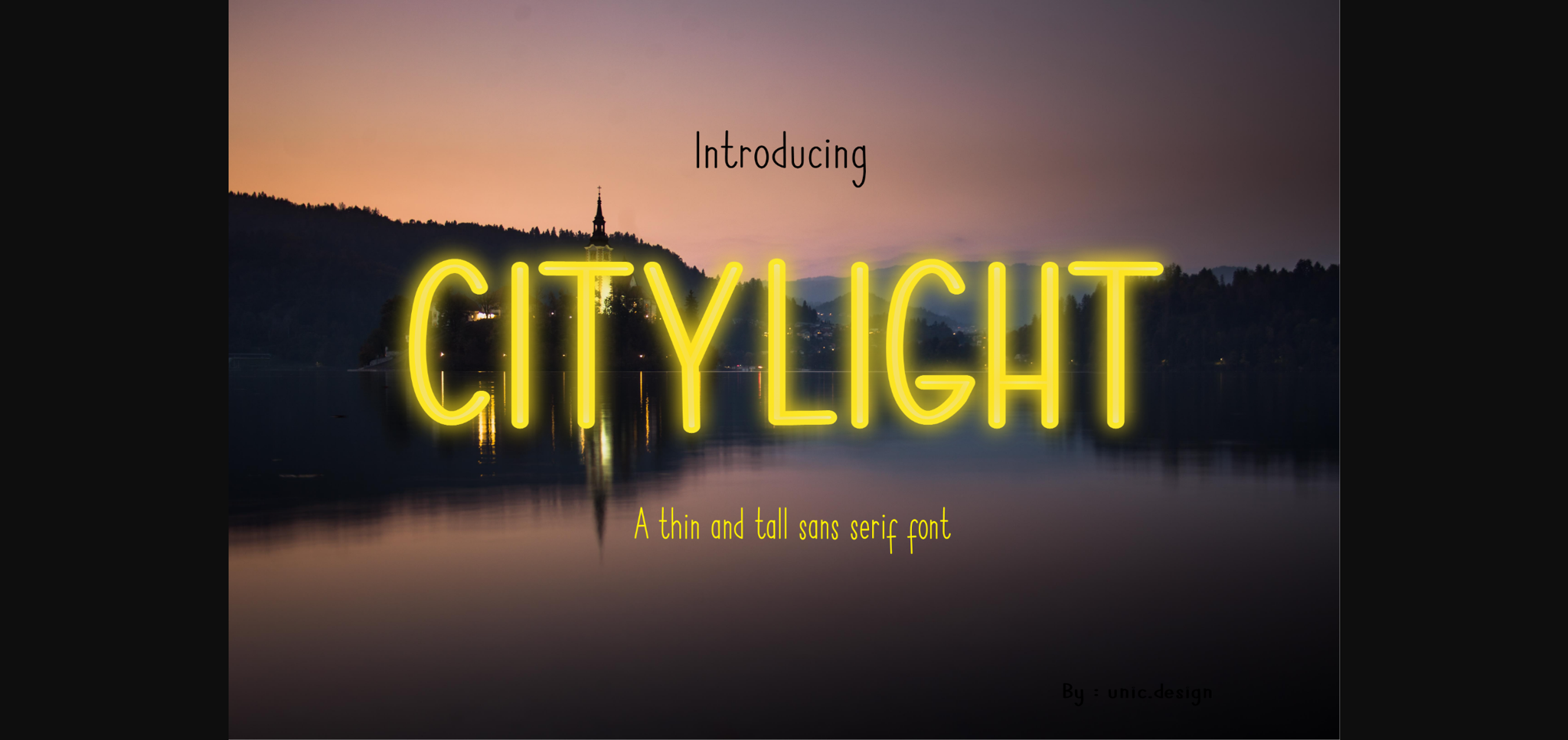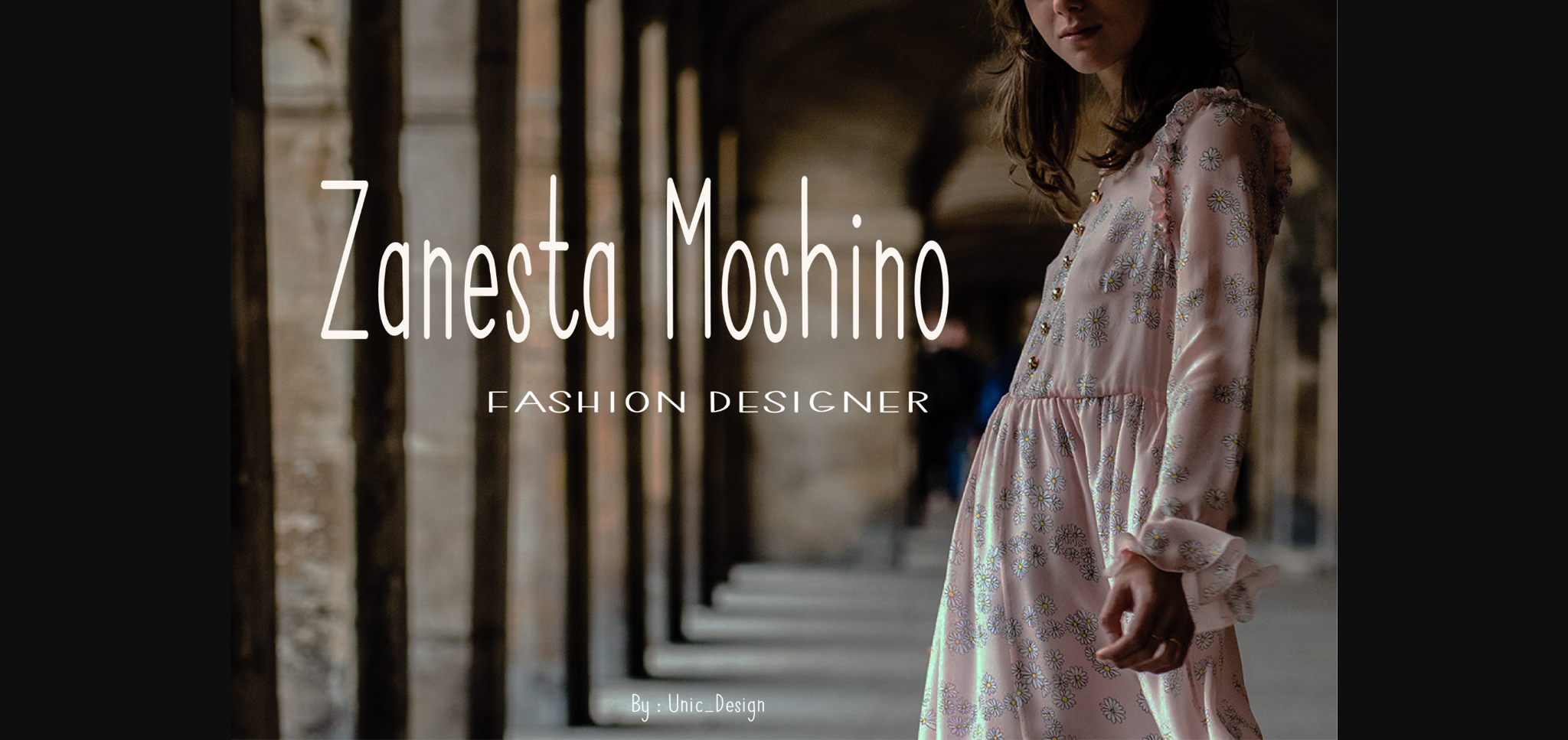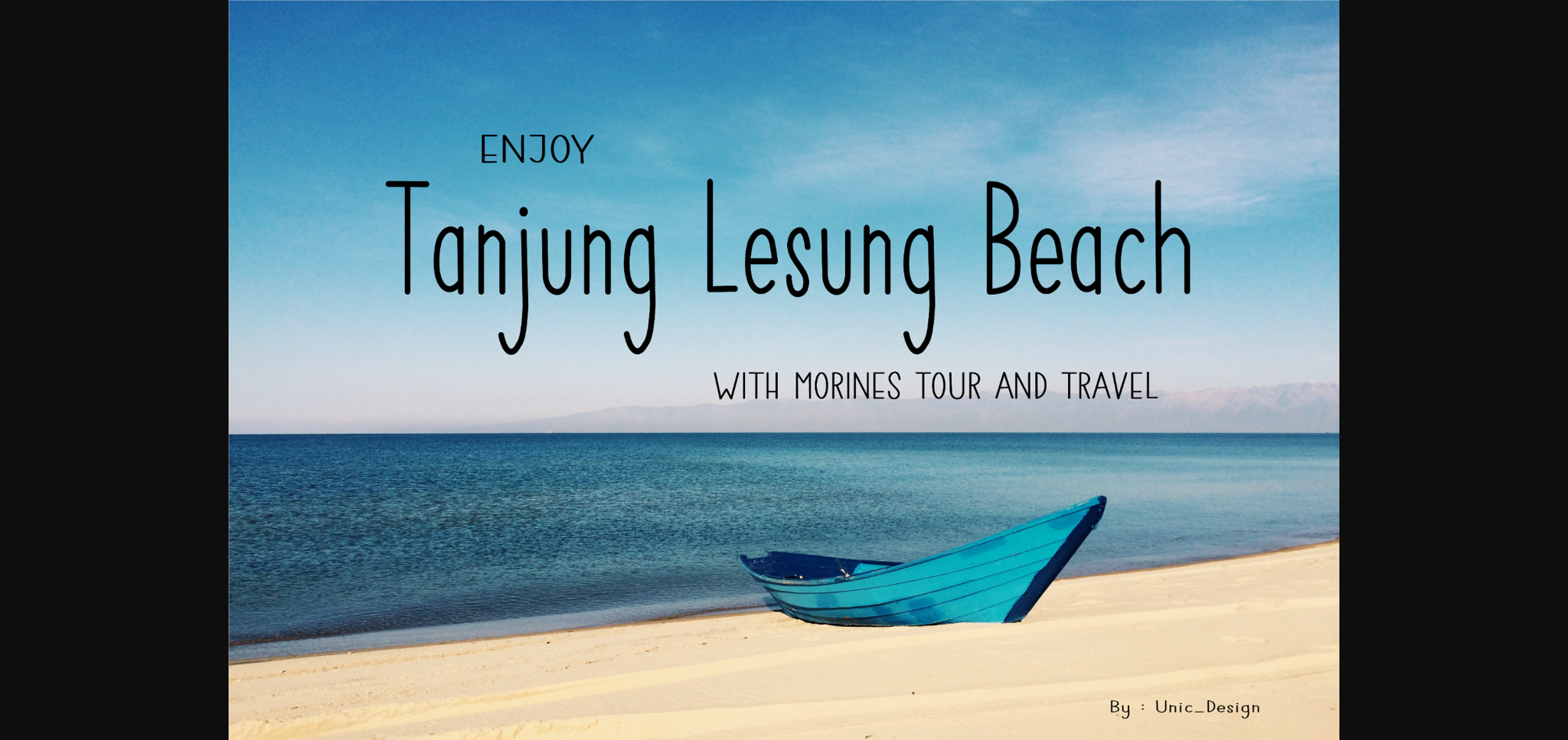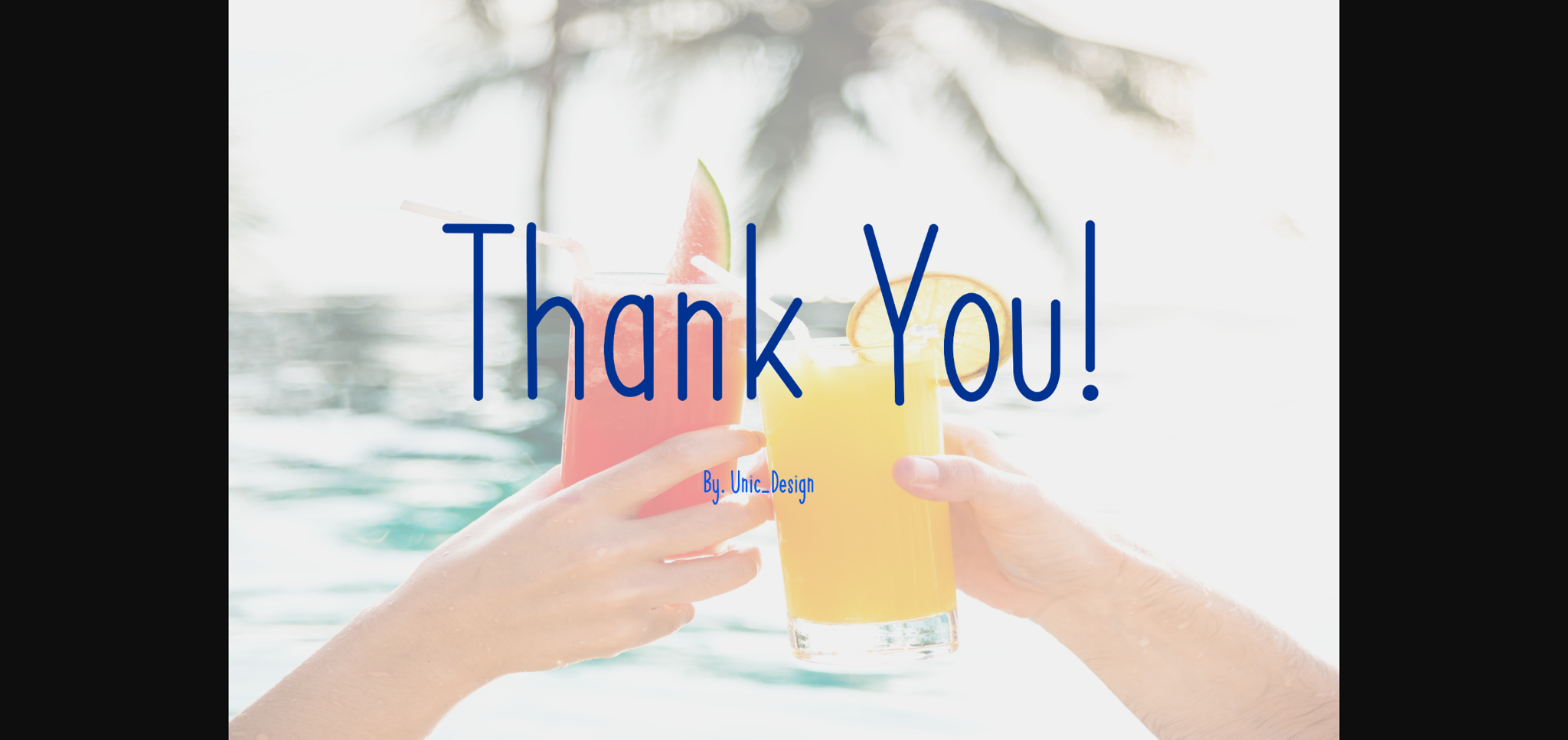
HomeSans Serif FontsCitilight Font Sans Serif Fonts Citilight Font FacebookXPinterestWhatsApp 1 of 6 ... Citilight Font Poster 2... Citilight Font Poster 3... Citilight Font Poster 4... Citilight Font Poster 5... Citilight Font Poster 6... About Citilight Font Citilight is a smooth sans serif font. It will complement any design need perfectly with its perfectly balanced mix of the smooth and sharp! DOWNLOAD NOW People also explored Hafsha Font Jasmine Script Font Thanklett Font Adelard Hikari Font Aulidah Font Tree Font Explorer Font Magic Moment 481 0 TagsCitilight Font Previous articleKind Sight FontNext articlePugypt Font LEAVE A REPLY Cancel reply Comment: Please enter your comment! Name:* Please enter your name here Email:* You have entered an incorrect email address! Please enter your email address here Website: Save my name, email, and website in this browser for the next time I comment. Personal Use Free Eloquence Personal Use Free Read more about this font Manbow Personal Use Free Read more about this font Sarwendah Personal Use Free Read more about this font Single Sleeve Personal Use Free Read more about this font BLOG Elegant Wedding Invitation Fonts – Handwritten & Script Fonts Elegant Wedding Invitation Fonts Your wedding day is one of the most important moments of your life, and every detail matters—including your invitation design. Our... The 10 Best Handwriting Fonts to Add Personality to Your Designs Transform Your Website: Elevate Your Typography with 7 Best Web Font Generators Where to Buy American Fonts Online in 2024